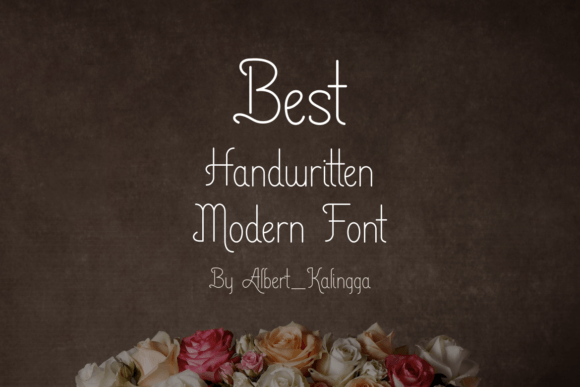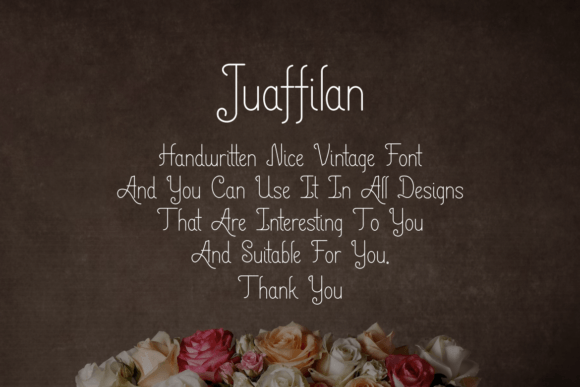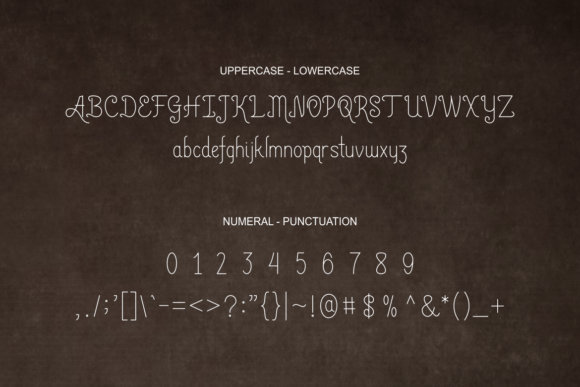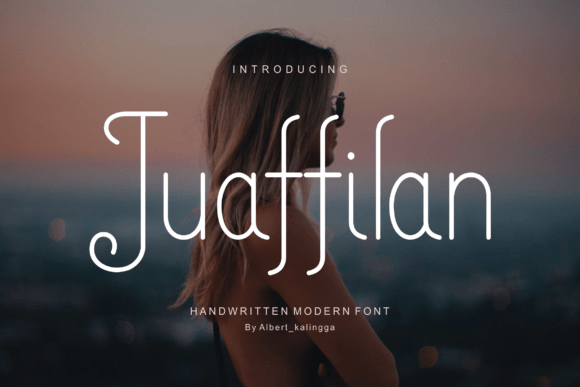
Introduction to Juaffilan Font
Juaffilan is a dazzling script font.
This font is neatly crafted and highly detailed Whatever the topic, this font will be a wonderful asset to your font library, as it has the potential to enhance any creation.
Key Features of Juaffilan Font
Why Choose Juaffilan Font?
Juaffilan Font offers exceptional quality and versatility, making it a valuable addition to your design toolkit. Whether you’re creating for personal projects or commercial use, Juaffilan Font delivers professional results.